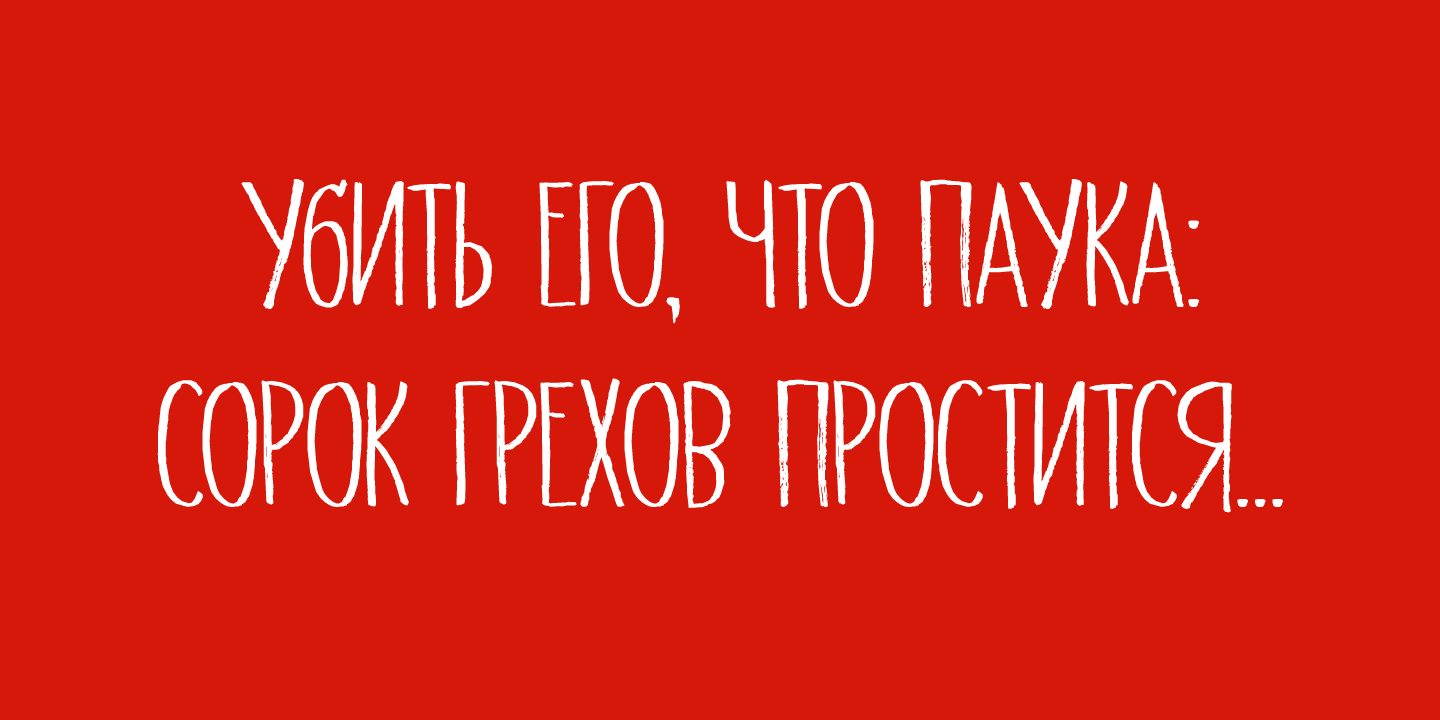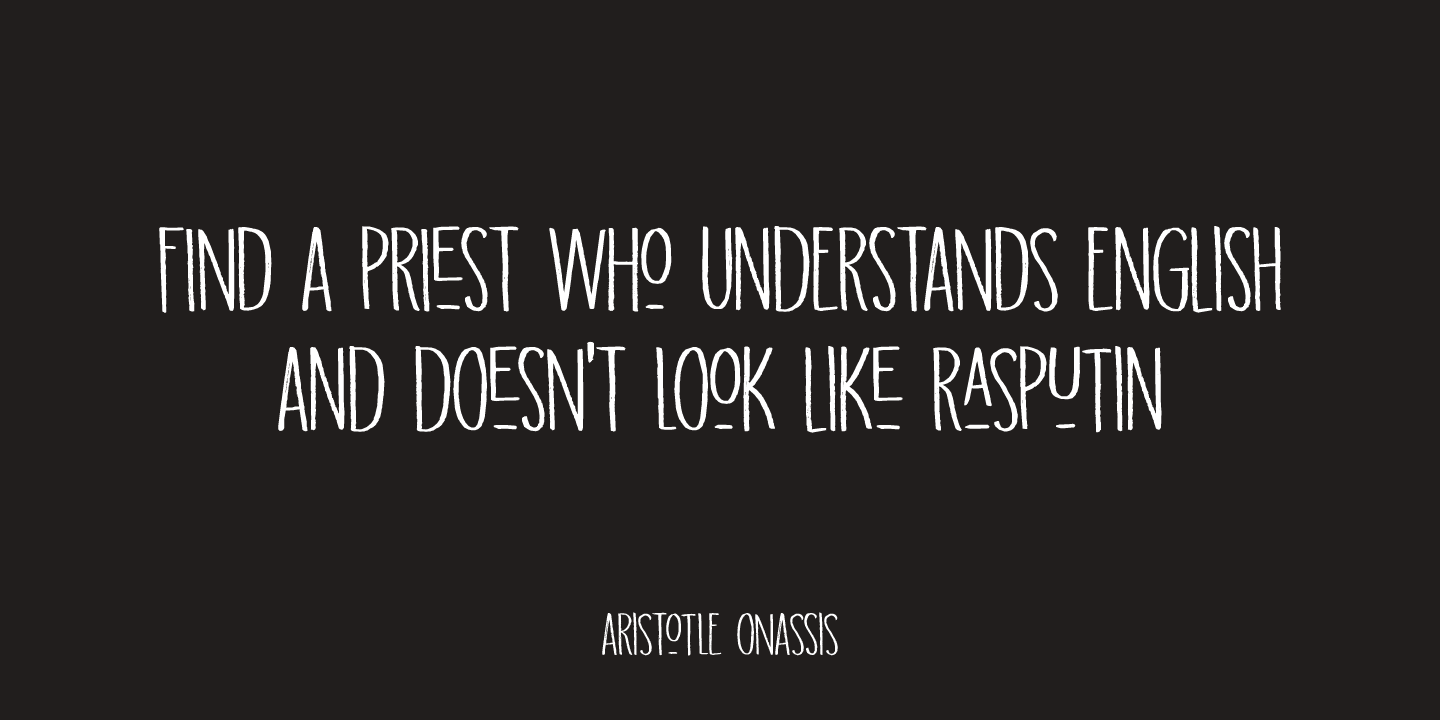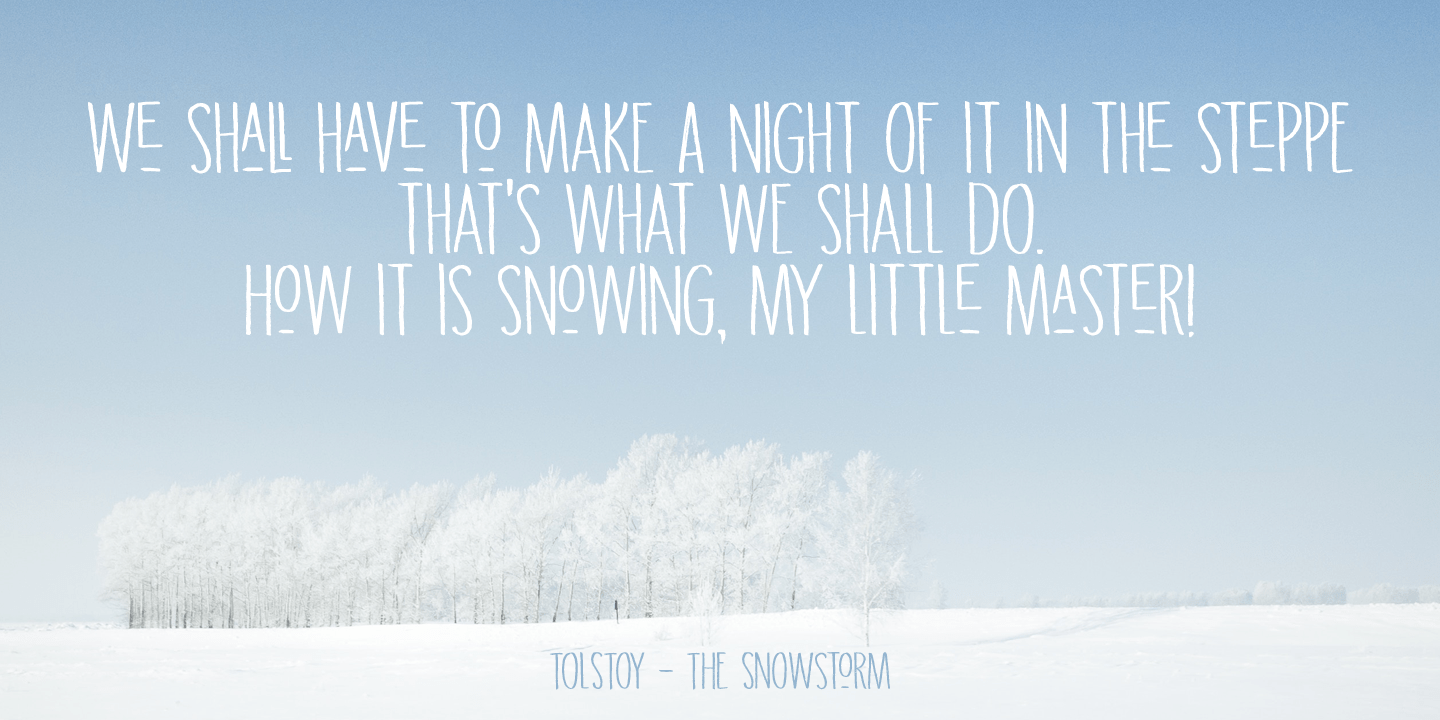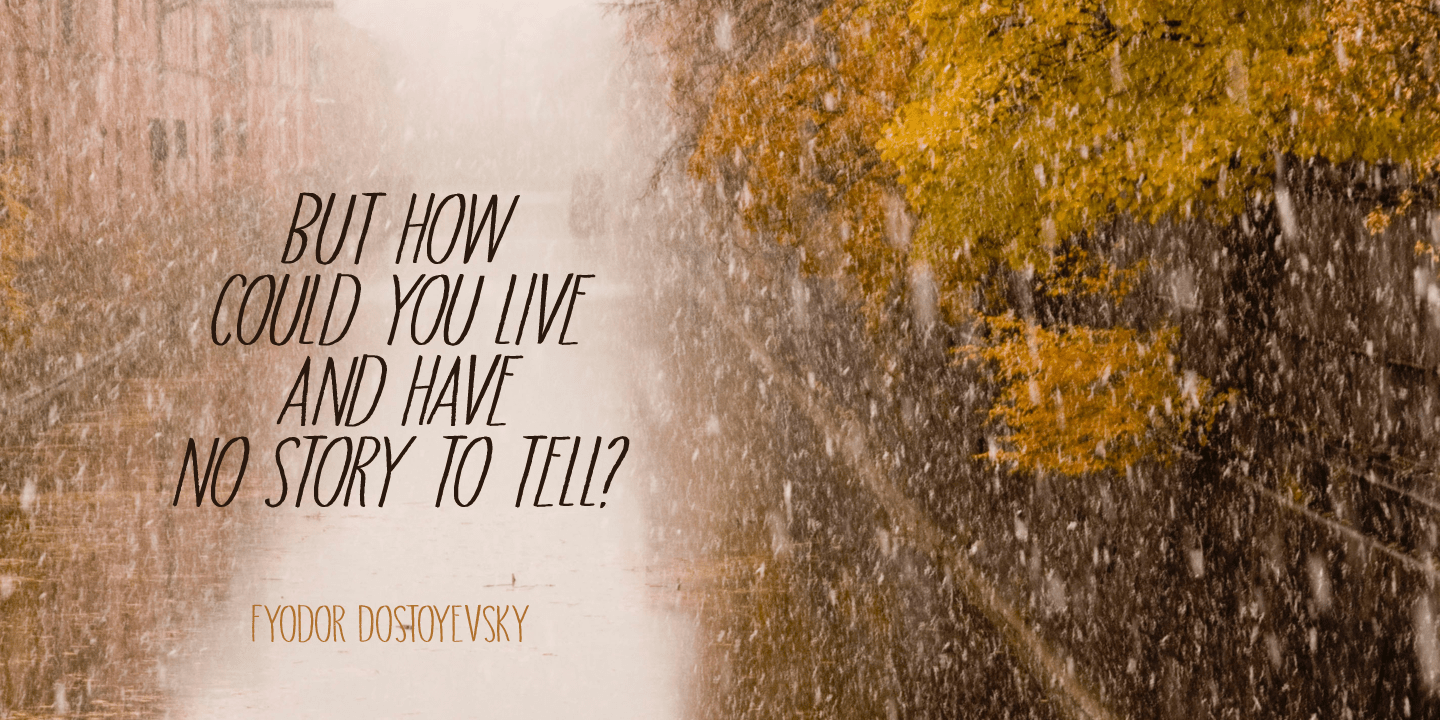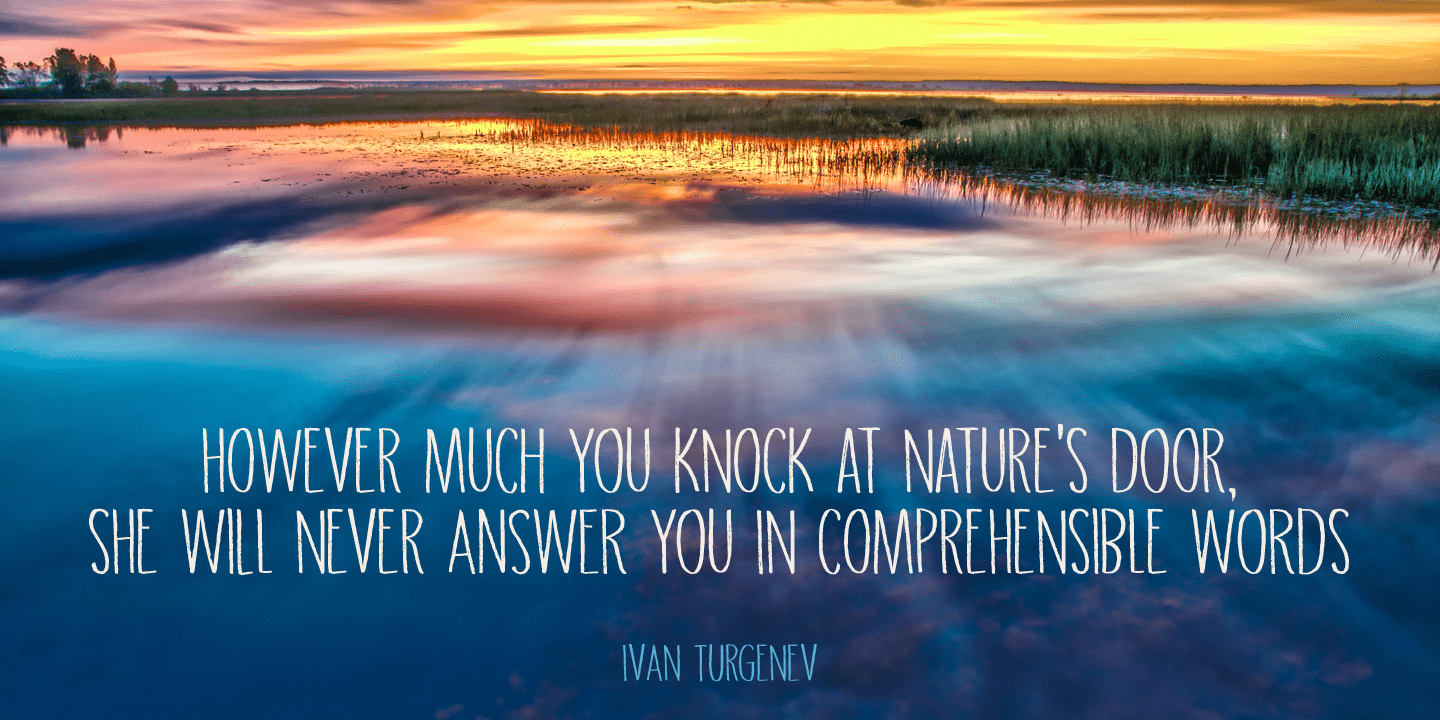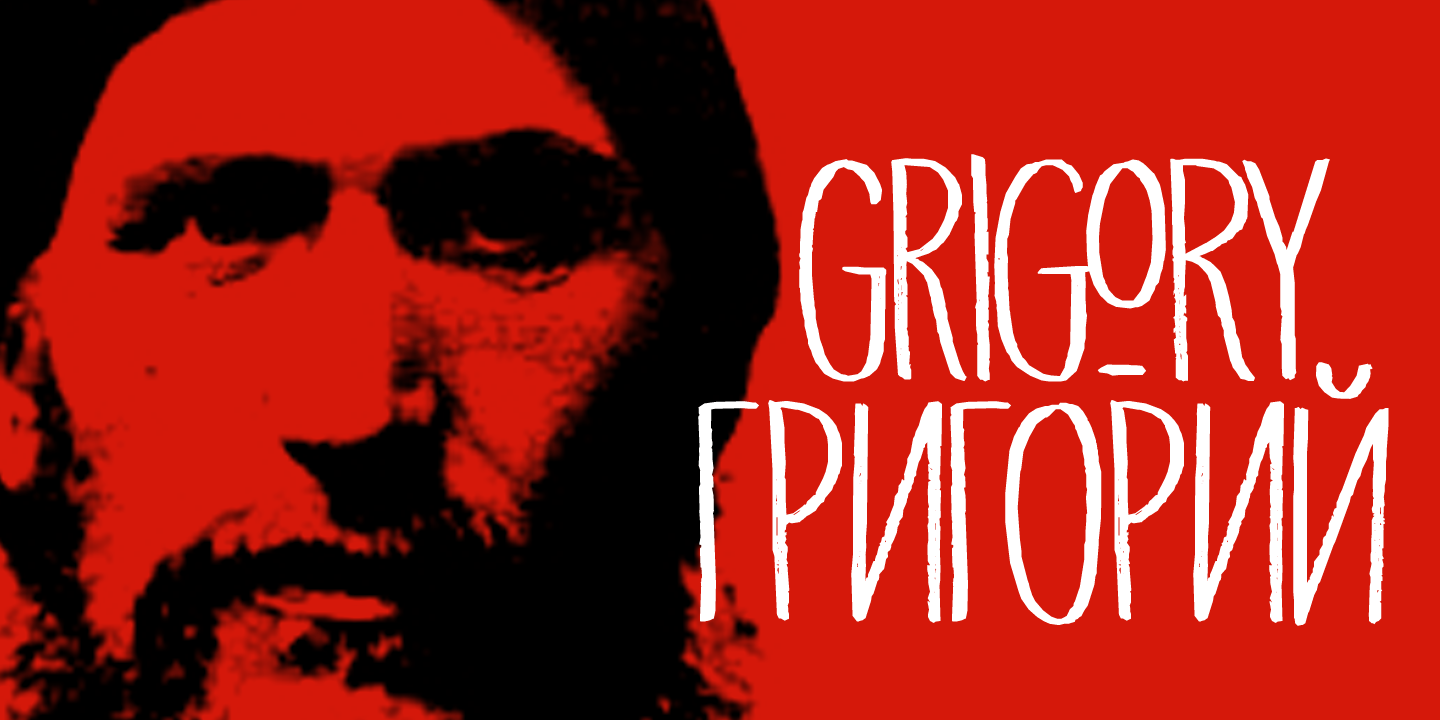
About Grigory
I have always been fascinated by Grigory Rasputin, the rogue ?monk? who influenced the Russian Tsar Nicholas and – according to rumours – bedded the Tsarina. Grigory font was handmade with the use of a Chinese marker pen and rough paper. Grigory comes…